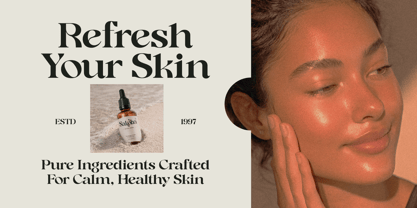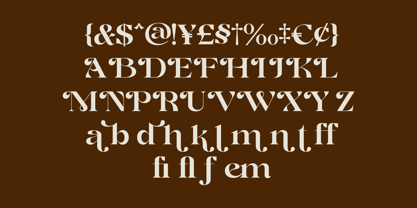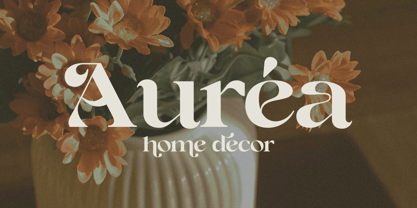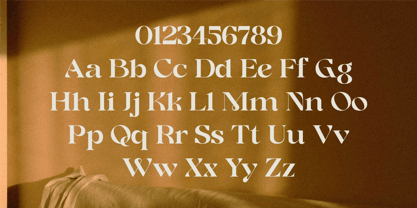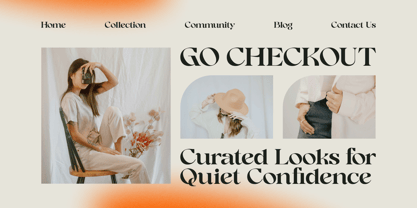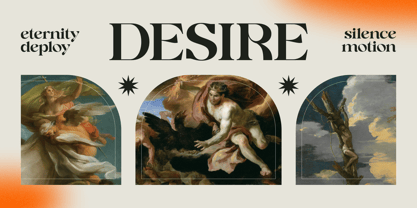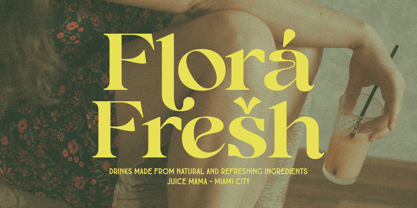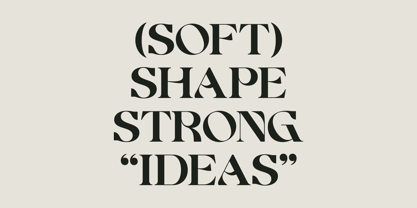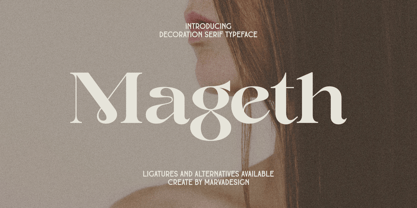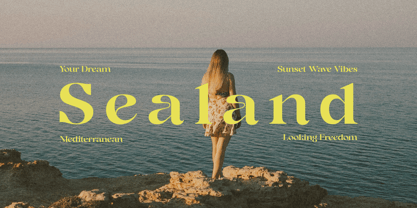
Mageth
Mageth is a decorative serif typeface that blends classic elegance with a contemporary, editorial sensibility. Its letterforms feature high contrast strokes, softly sculpted curves, and distinctive teardrop terminals that create a refined yet expressive personality. The serifs are gracefully shaped, giving Mageth a luxurious and timeless feel, while subtle ligatures and stylistic alternates add a sense of artistry and fluid rhythm to the typography. This balance between bold structure and delicate detail allows the font to stand out without feeling overly ornate. Designed to shine in display use, Mageth performs beautifully in branding, fashion editorials, beauty campaigns, home décor visuals, and lifestyle packaging.